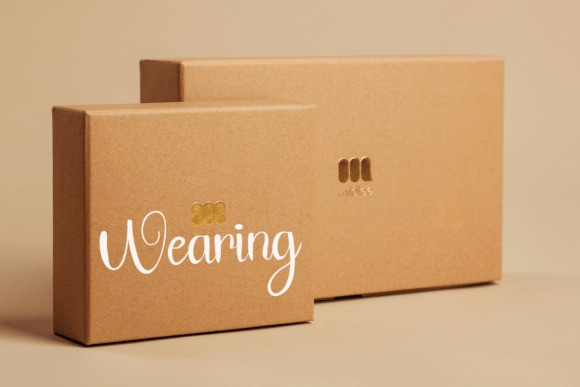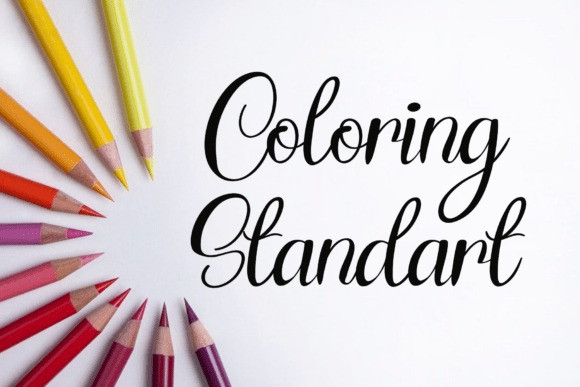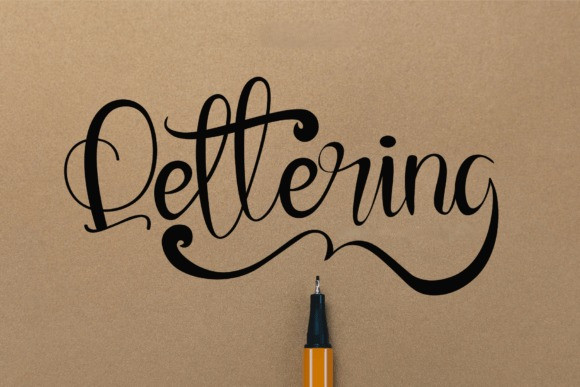
Lettering Script Typeface
Lettering Script Typeface is a beautiful handwritten font with a natural, flowing style. It looks like elegant cursive writing, perfect for adding a personal and stylish touch to invitations, logos, and social media posts.